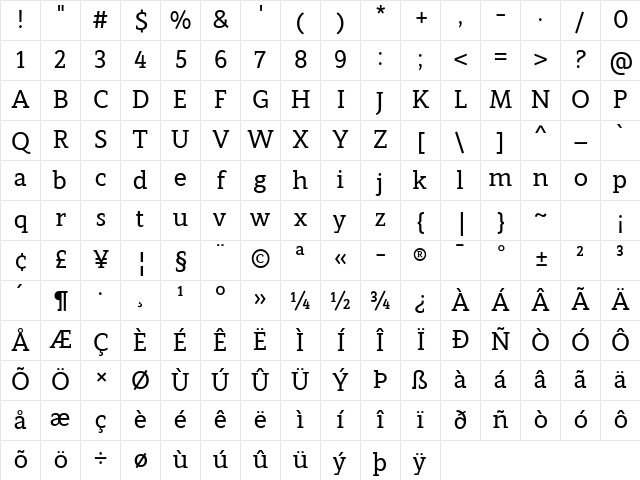
Modum is a composed and adaptable typeface that performs quietly and consistently across a wide range of design contexts.
Pro Tip: Use Modum in both headline and body roles to test its range before committing to a single application.